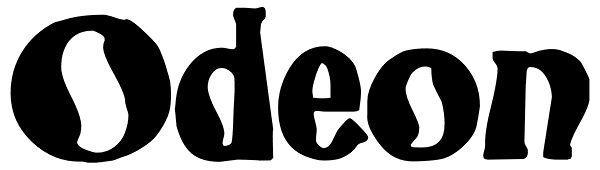
Odeon
Odeon is the kind of font you would have seen on theatre or concert posters around the turn of the twentieth century. It is based on Art Nouveau sign lettering and has a heavy, playful look that's hard to miss.
Odeon Font